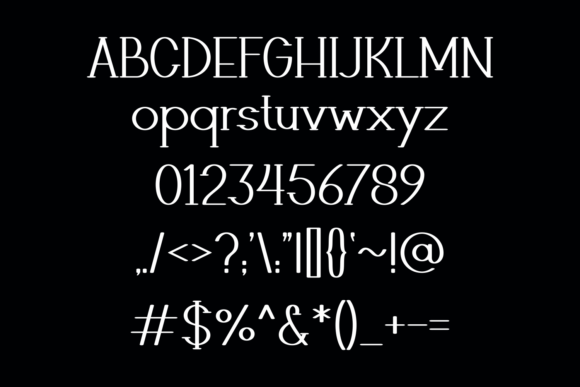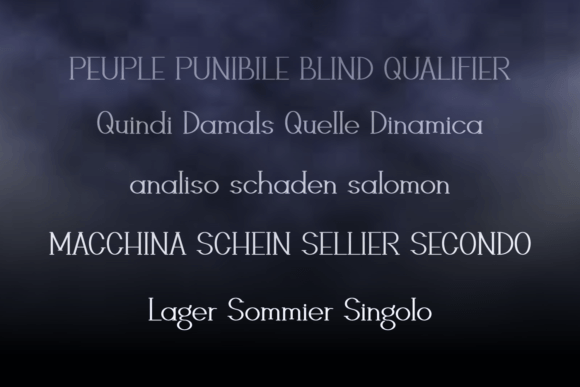
Introduction to Rekardion Font
Have you ever been stuck on a creative project, struggling to find the perfect font to bring your vision to life? I know I have. Remember that moment when you finally stumbled upon the ideal font, and everything just clicked? It’s like the missing piece of the puzzle has been found. For designers, this feeling is priceless. That’s why I’m excited to introduce you to the Rekardion Font, a cool and unique display font that’s sure to elevate your creative projects.
With its neat and highly detailed design, the Rekardion Font is a valuable asset to any designer’s library. Whether you’re working on a logo, a graphic novel, or a social media campaign, this font has the potential to enhance any creation. Its versatility and high quality make it an ideal design resource for any project, from free download to commercial use.
What sets the Rekardion Font apart is its transparent background, allowing you to easily layer it with other design elements. This feature makes it perfect for designers who want to add an extra layer of depth to their designs. In this article, we’ll dive deeper into the features and benefits of the Rekardion Font, and explore how you can incorporate it into your next creative project.
Key Features of Rekardion Font
- High-quality design resource for creative projects, ideal for use in various digital applications.
- Designed to be highly scalable, with a resolution of 300 DPI, making it suitable for use in high-resolution designs.
- Unique characteristics include a modern and elegant aesthetic, making it perfect for use in creative projects requiring a sophisticated look.
Honest Review: Rekardion Font
I recently came across the Rekardion Font and I’m excited to share my thoughts on it. As a designer, I’m always on the lookout for high-quality design resources that can elevate my creative projects.
One of the standout features of the Rekardion Font is its versatility. It’s available for free download, which is a major plus in my book. The font is also incredibly well-designed, with a sleek and modern aesthetic that’s perfect for a wide range of creative projects.
Here are some of the things that work well with the Rekardion Font:
- ✨ High-quality design: The font is incredibly well-designed and looks great on both digital and print materials.
- ✨ Versatile: The font is perfect for a wide range of creative projects, from logos and branding to web design and advertising.
- ⚠️ Limited font weights: While the font is well-designed, it’s limited to a few font weights, which may not be suitable for all projects.
- ⚠️ No transparent background option: If you’re working on a project that requires a transparent background, you may need to look elsewhere.
Overall, I’m impressed with the Rekardion Font and would highly recommend it to designers looking for a high-quality design resource. While it may have a few limitations, the font’s versatility and modern aesthetic make it a valuable addition to any design toolkit.
The Rekardion Font is a high-quality design resource that can be used in a variety of creative projects, including logos, brochures, posters, and social media graphics. Its transparent background makes it ideal for use on images with complex backgrounds.
To get the most out of the Rekardion Font, experiment with different font sizes, colors, and styles to create visually appealing designs. You can also use the font in combination with other design elements, such as images and shapes, to create a unique and eye-catching visual identity.